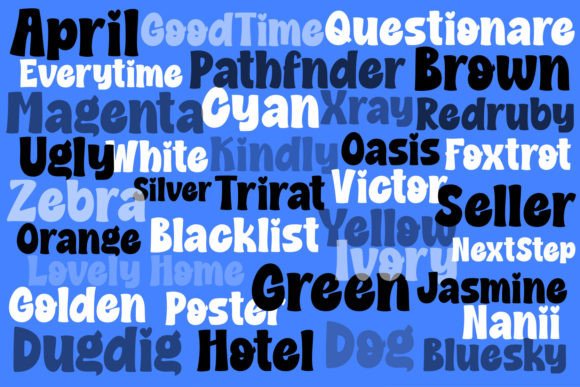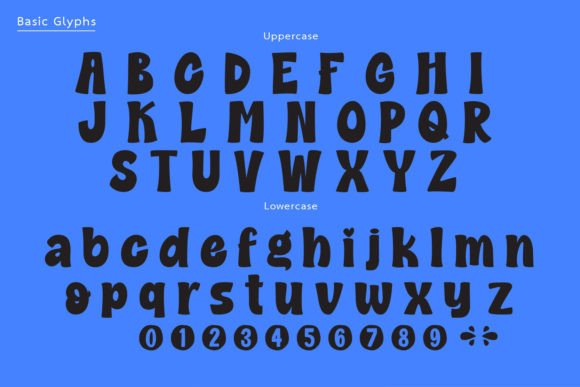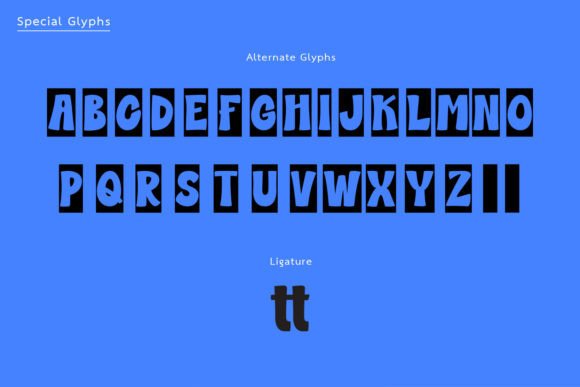
Introducing “Call Me Jigo Font”: A Charming and Modern Handwritten Style
In the world of typography, a good font can make all the difference in the success of a design project. For designers and crafters looking for a unique and visually appealing font, “Call Me Jigo” is an excellent choice. This charming and modern font boasts a playful handwritten style that is sure to capture the attention of your audience.
Rounded and Bold Characters for Easy Readability
The “Call Me Jigo” font features rounded and bold characters that are designed to be easy to read and visually pleasing. The font’s rounded edges give it a friendly and approachable feel, making it perfect for a variety of design projects, from advertising and promotional materials to digital and print media.
The bold look of the font ensures that your text stands out, even at smaller font sizes. This makes it ideal for use in headlines, titles, and other applications where you want to make a strong visual impact.
Unique Decorative Touch with Alternative Letters
One of the standout features of the “Call Me Jigo” font is the inclusion of alternative letters. Each lowercase letter comes with an alternative option (PUA encoded), where the letter is contained within a solid square frame. This adds a unique decorative touch to your text, allowing you to create a more distinctive and captivating look.
The alternative letters are perfect for enhancing transitions between words, adding a touch of personality and style to your designs. You can use them to create a sense of continuity and flow, or to add emphasis to specific words or phrases.
Ideal for Advertising and Promotional Projects
With its combination of readability and creative flair, “Call Me Jigo” is ideal for a variety of advertising and promotional projects. The font’s playful and modern style makes it perfect for use in:
- Brochures and flyers
- Posters and billboards
- Digital and print ads
Whether you’re looking to create a bold and eye-catching headline or a more subtle and sophisticated design, “Call Me Jigo” is a versatile font that can help you achieve your goals.
“Call Me Jigo” is a font that is designed with designers and crafters in mind. The font’s unique and playful style makes it perfect for use in a variety of creative projects, from handmade crafts to digital art.
The font’s ease of use and versatility make it ideal for designers who want to add a personal touch to their designs. Whether you’re a seasoned designer or just starting out, “Call Me Jigo” is a great choice for anyone looking to add some personality and style to their work.
Key Features of “Call Me Jigo” Font
- Charming and modern handwritten style
- Rounded and bold characters for easy readability
- Alternative letters contained within a solid square frame
- PUA encoded for easy use
- Ideal for advertising and promotional projects
- Perfect for designers and crafters
Overall, “Call Me Jigo” is a unique and versatile font that is sure to add a touch of personality and style to your designs. With its combination of readability and creative flair, it’s the perfect choice for designers and crafters looking to make a strong visual impact.